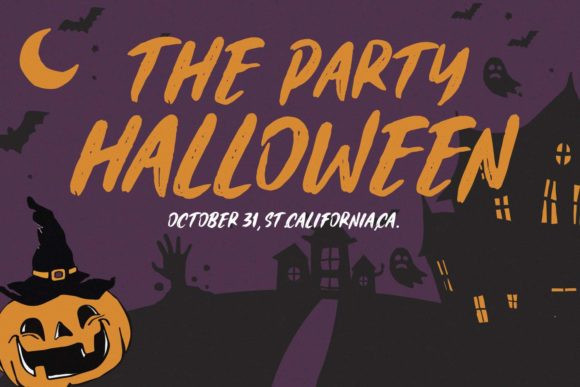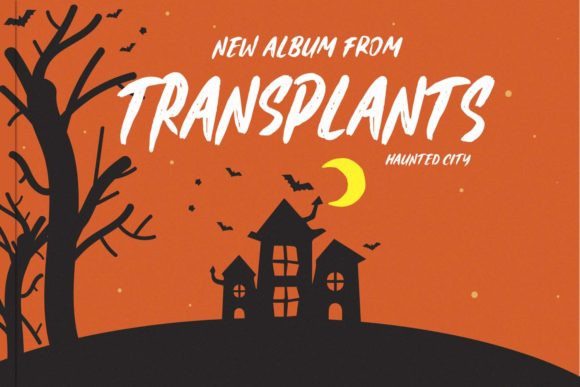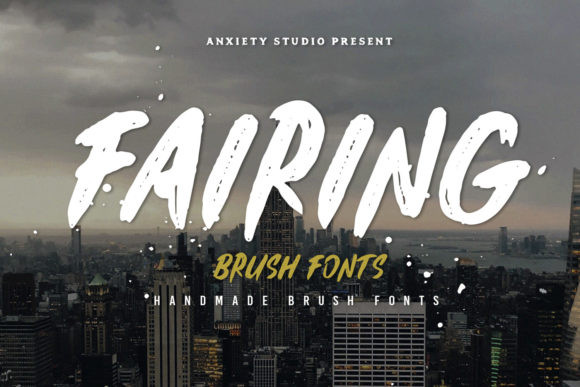
Fairing Font
Fairing is a hand-painted display font featuring characters carefully painted to perfection. It is well suited for a wide variety of projects!